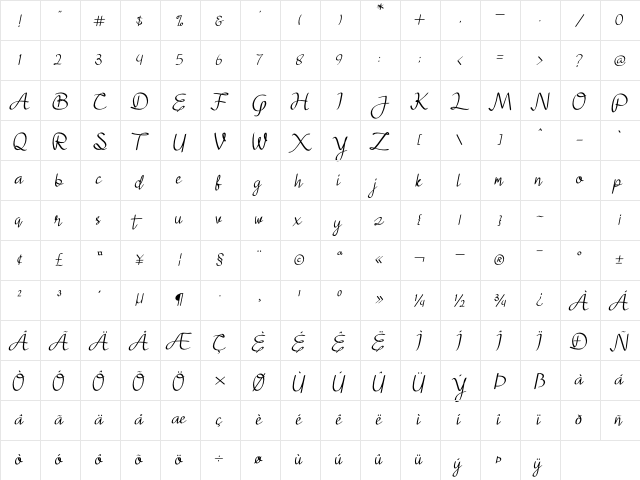
Juliyeta Regular
| Designer | ahmad faizin |
Design Context for Juliyeta Typeface
Juliyeta takes a measured approach to typography — its balanced proportions and neutral character make it a reliable workhorse for both digital and print work.